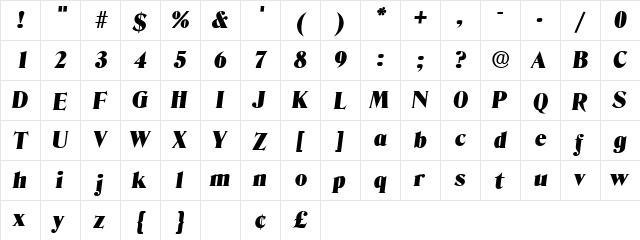
Kazan Display SSi Italic
Design Context for Kazan Display SSi Typeface
Kazan Display SSi brings ornamental detail and strong personality to headlines and identities, where visual impact matters more than quiet functionality. The dynamic lean of this cut emphasises speed and emphasis in any layout.
Font Pairing: Pair with a clean neutral sans-serif for body copy to let Kazan Display SSi's character lead without overwhelming the composition.
Pro Tip: Use Kazan Display SSi exclusively at display sizes — it was designed to be seen, not read at length. Let a neutral companion handle body copy.